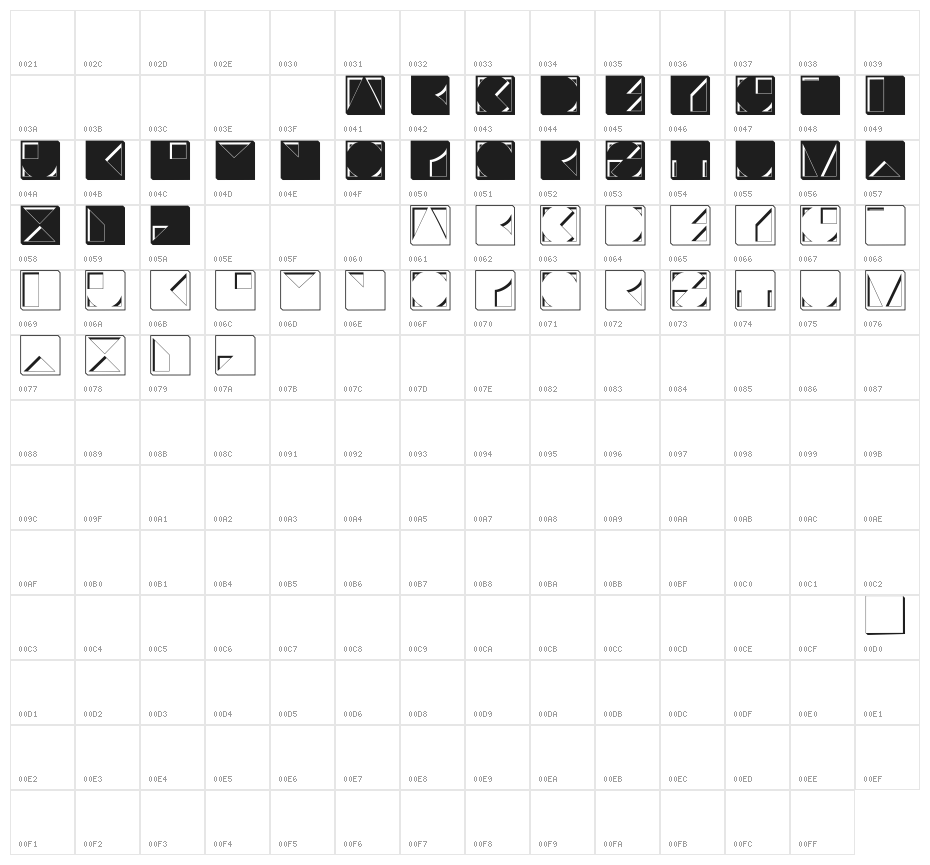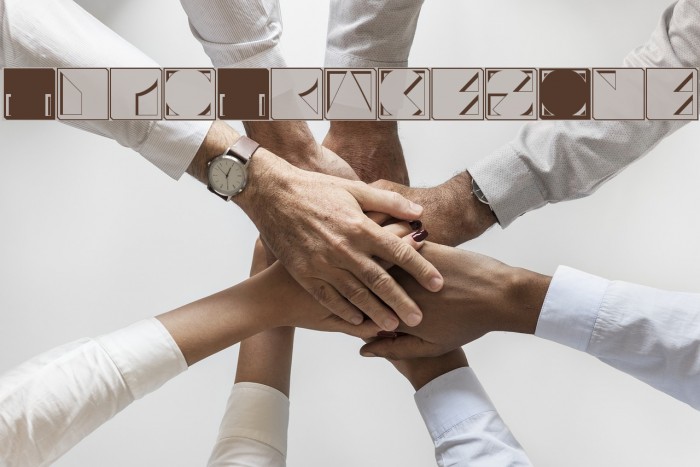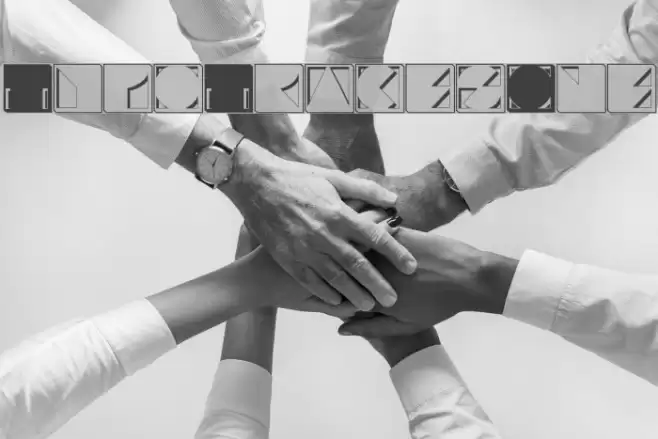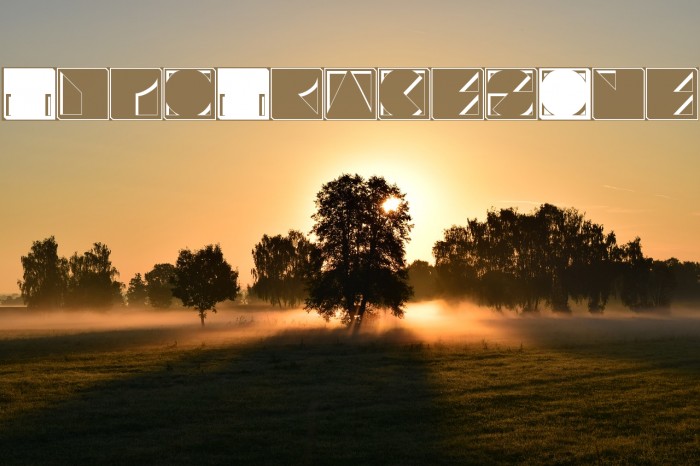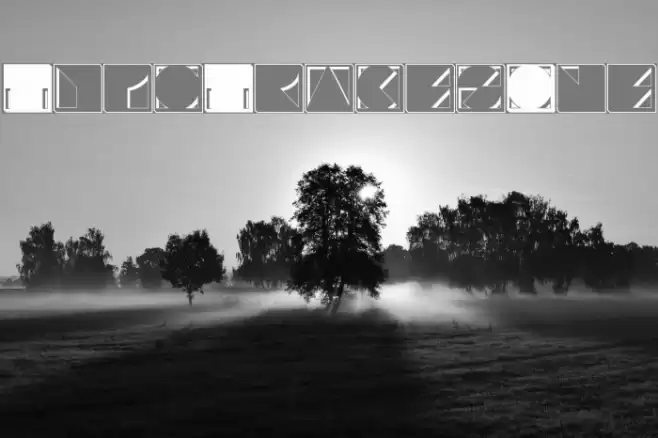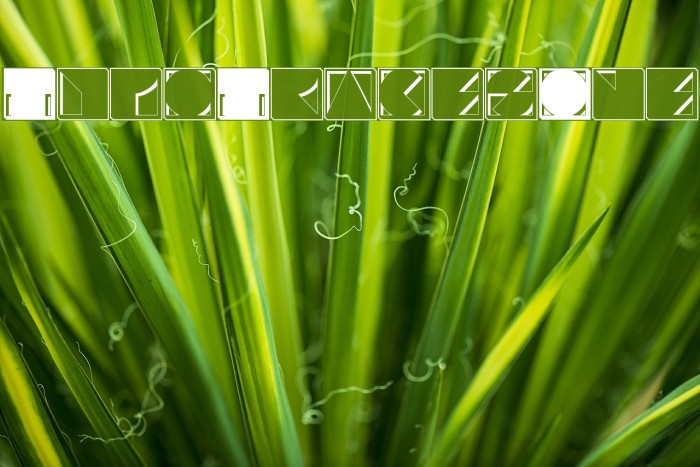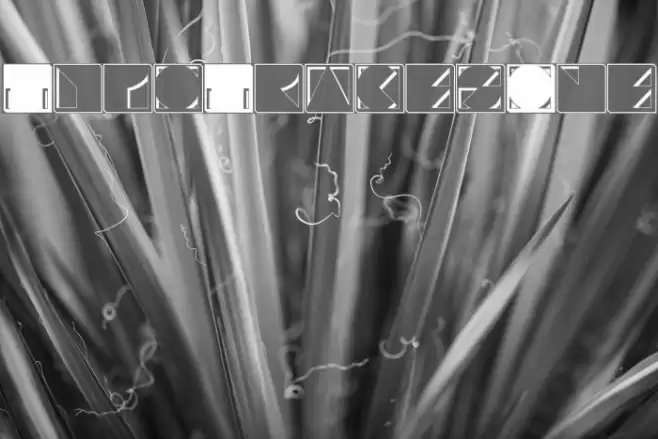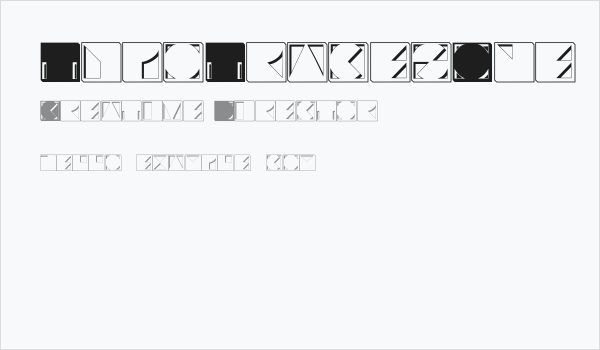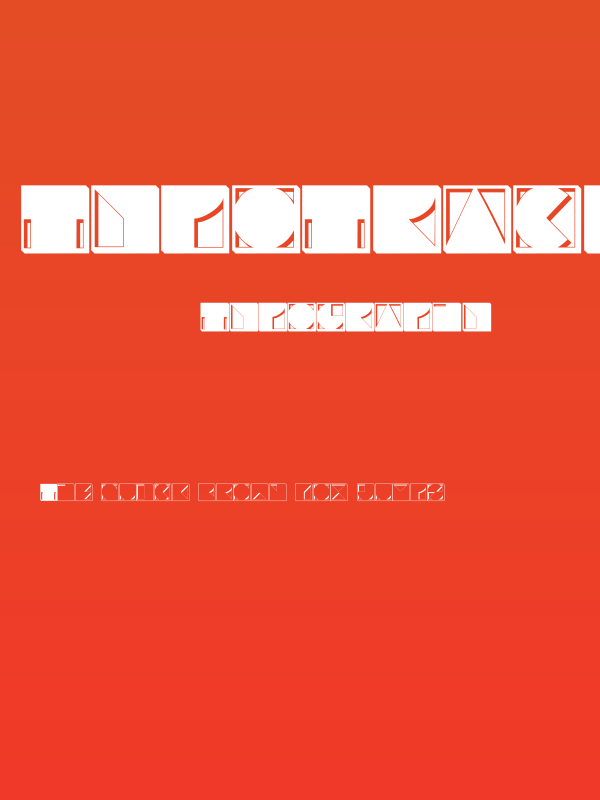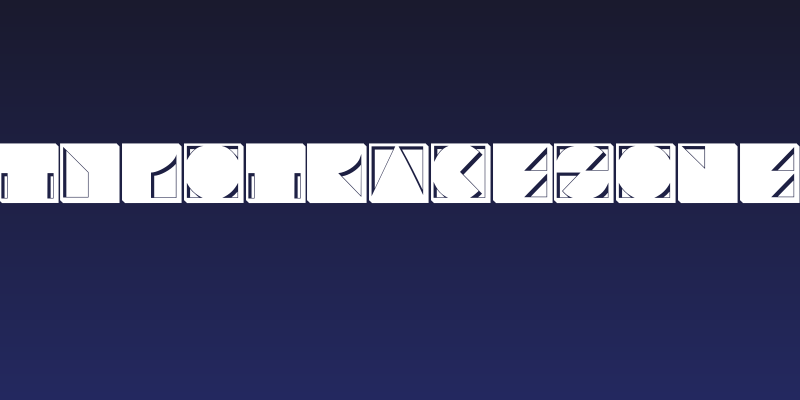
TypoTracesOne Font
TypoTracesOne Description
This font features a highly geometric and abstract design, with each character enclosed in a square or rectangular shape. The letters are composed of sharp angles and intersecting lines, creating a futuristic and modern aesthetic. The use of negative space is prominent, giving the font a unique and artistic appearance. The characters are consistent in their boxy form, making it suitable for creative and experimental design projects. The font's distinct style makes it stand out, ideal for attention-grabbing headlines or artistic displays.
| Proposed Projects | Ideal for modern art projects, futuristic branding, experimental posters, and digital media designs. |